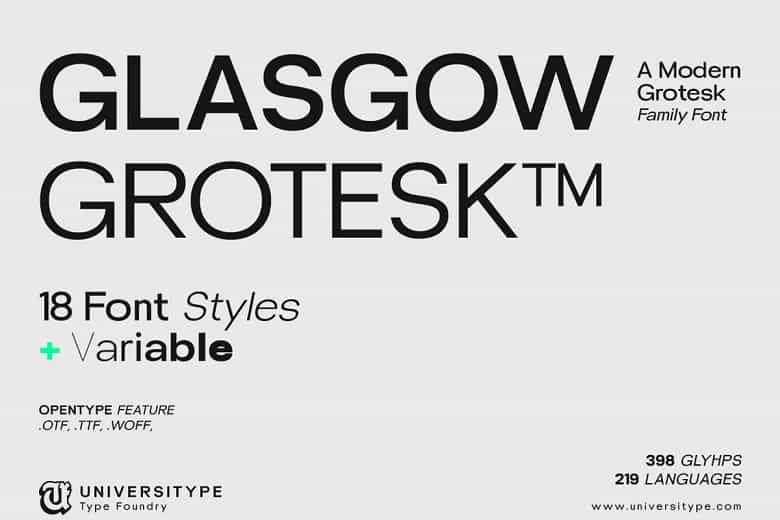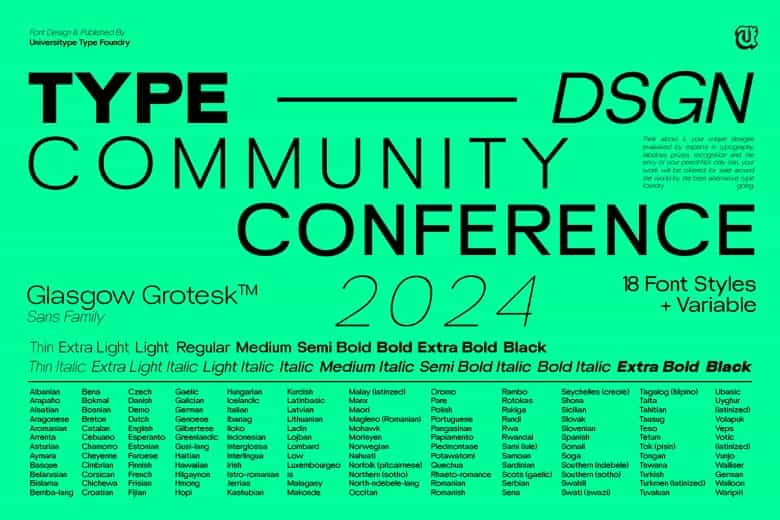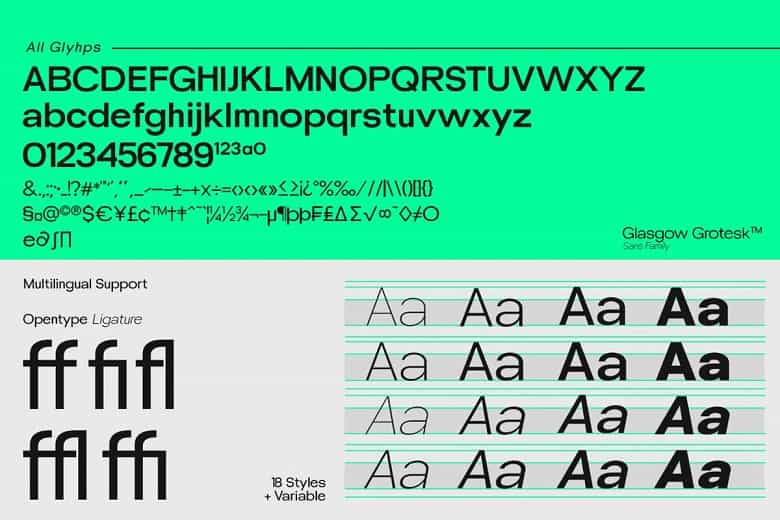
UT Glasgow Grotesk is a powerful and elegant grotesque sans-serif typeface family, designed by the Universitype Team, that covers all the type typography needs for professional use. It is a variable font with 18 style masters, which allows for a great amount of control over the weight and width of the font, ideal for digital and print use. This font family is perfect for designing contemporary and business like projects with clean and simple design. Whether you are creating a responsive website, designing an interactive media, or developing a brand identity,